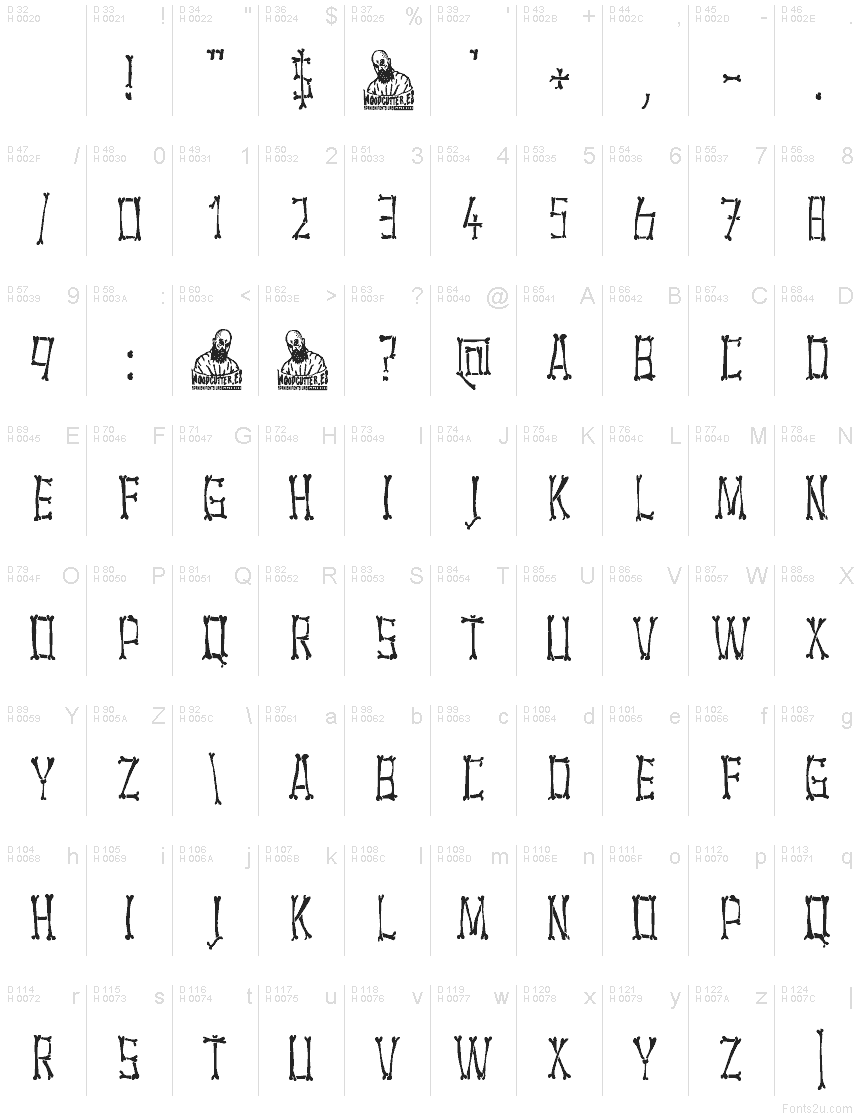
Bones in Black
Bones in Black font by Woodcutter is a free decorative display font. Built from knobby, splintered “bone” strokes with rough, inky edges, it lands an instant horror vibe without needing extra artwork. The letters are tall and slightly condensed, so headlines feel packed and tense—great when you want that eerie, rattling rhythm to lead the show.
Using Bones in Black, you can nail Halloween posters, haunted house signage, horror movie titles, spooky podcast covers, trick‑or‑treat packaging, escape‑room graphics, and seasonal social teasers. This free font shines at large sizes; pair it with a plain, modern sans for body copy to keep the scare factor readable and the message clear.